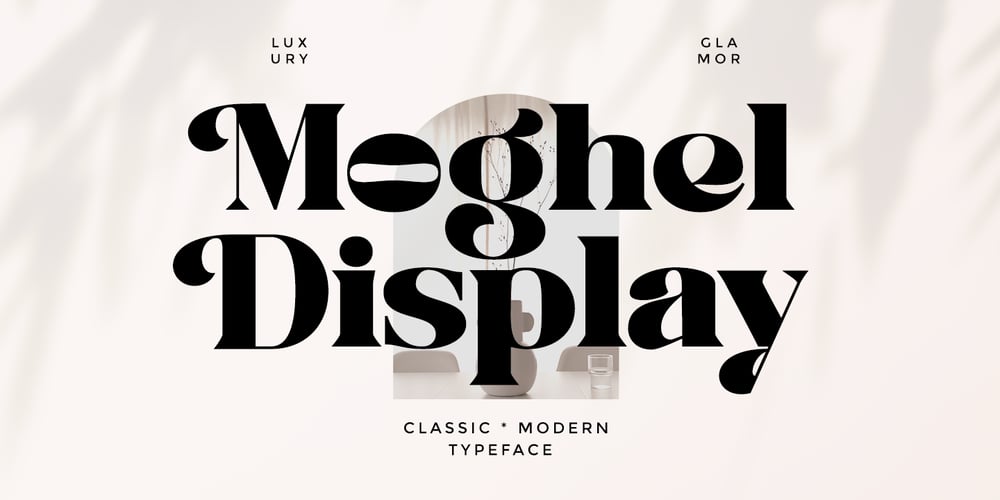
Moghel Display
Moghel Display font
Moghel Display Font Family was designed by Jumm ati and published by Masa Type. Moghel Display contains 2 styles and family package options. Preview TextMoghel DisplayMore information about this FontMoghel display is a modern serif font with a unique ligature style, a high contrast and light font perfect for feminine logo signs, fashion heads & editorial designs, branding projects, Clothing Branding, packaging, magazine headings, advertising, T-shirts, postcards and much more.Moghel display is also included full set of:Uppercase and lowercase lettersAutomatic ligaturesMultilingual charactersNumeralsPunctuationWhat will you get?Moghel display Regular.otfMoghel display Italic.otfIf you have any questions, don’t hesitate to contact me.Thank you,Masa Type